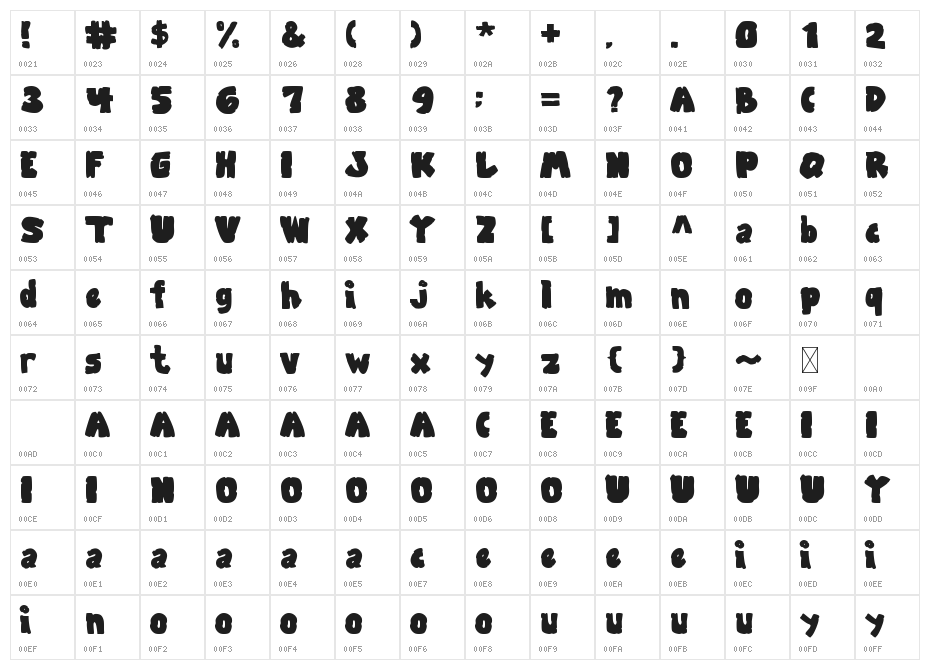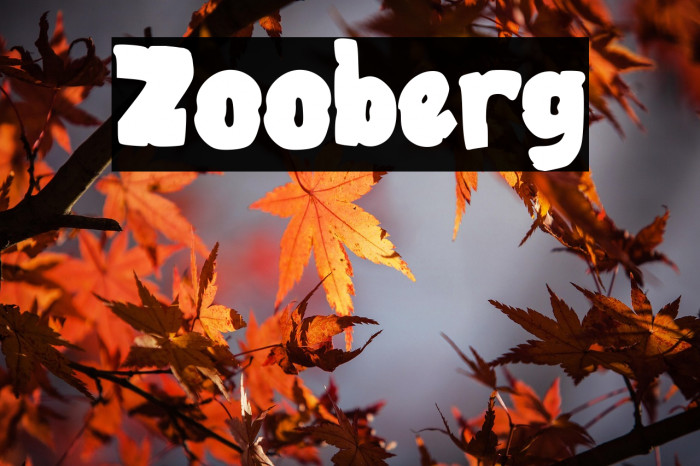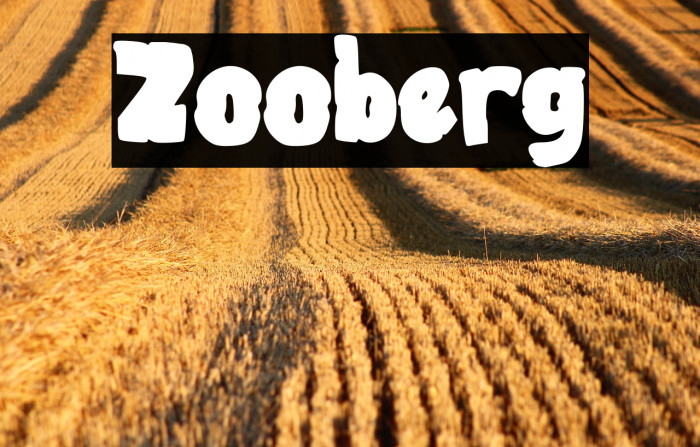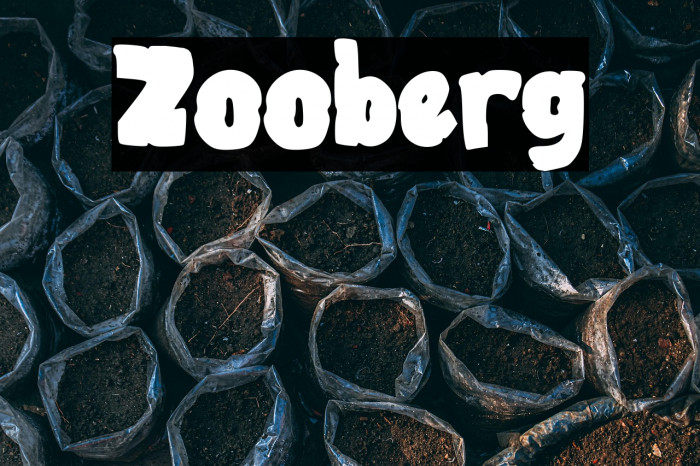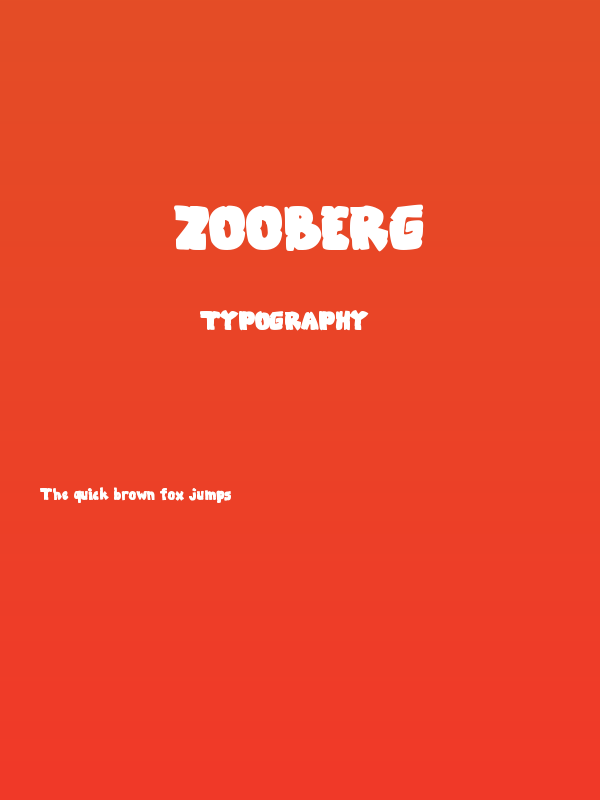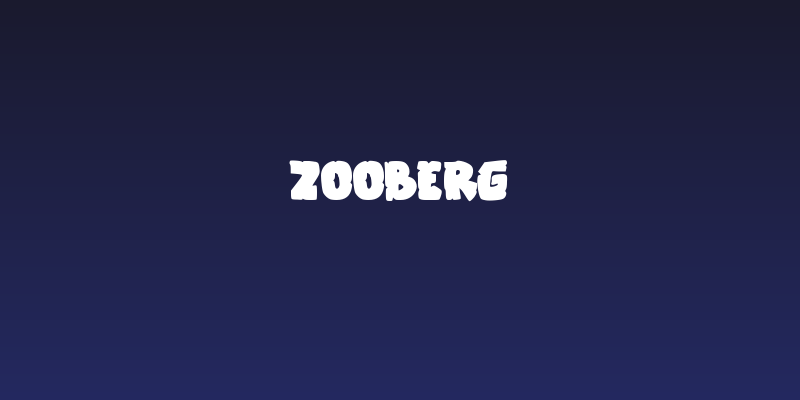
Zooberg Font
Zooberg Description
This font features a bold and playful design with thick, rounded strokes that give it a cartoonish and friendly appearance. The characters are heavily weighted, providing a strong presence on any medium. The uppercase and lowercase letters maintain a consistent style, with exaggerated curves and a slightly irregular form that adds to its whimsical charm. The numbers and special characters follow the same playful aesthetic, making this font suitable for creative and informal applications.
| Overall Style | Playful, Cartoonish |
| Use Case | Headlines, Posters, Branding |
| Proposed Projects | Ideal for children's books, comic strips, playful branding, and eye-catching posters. |